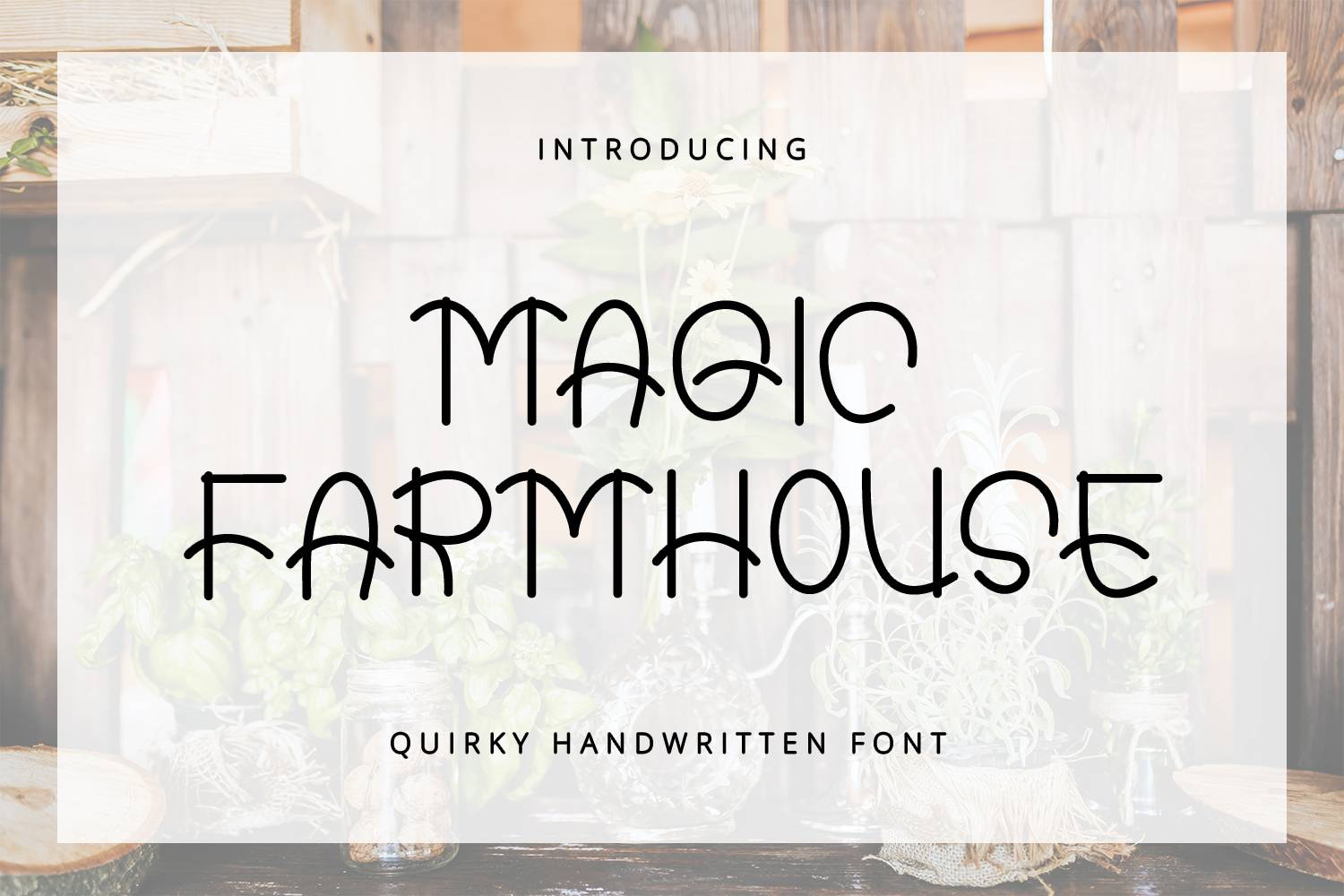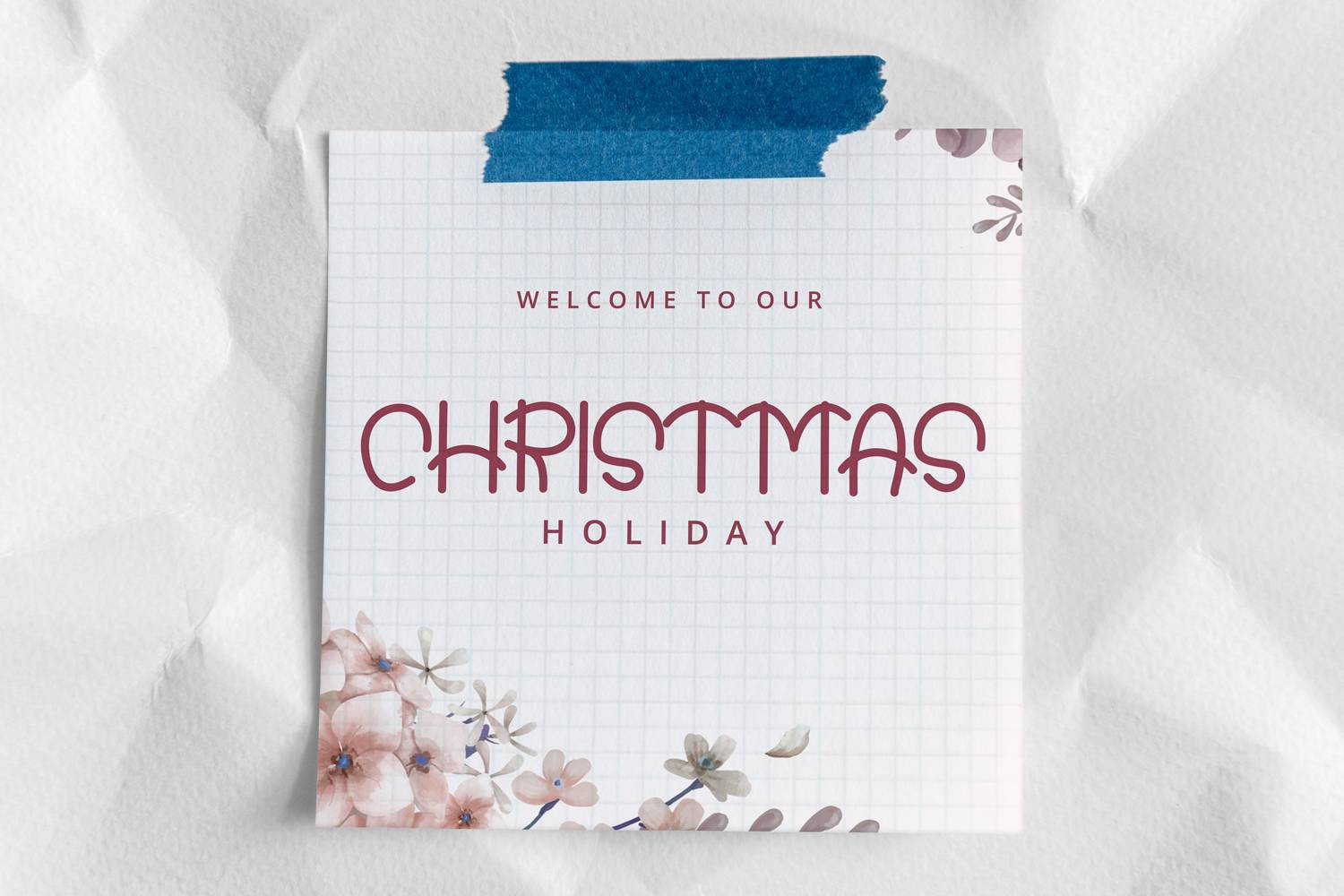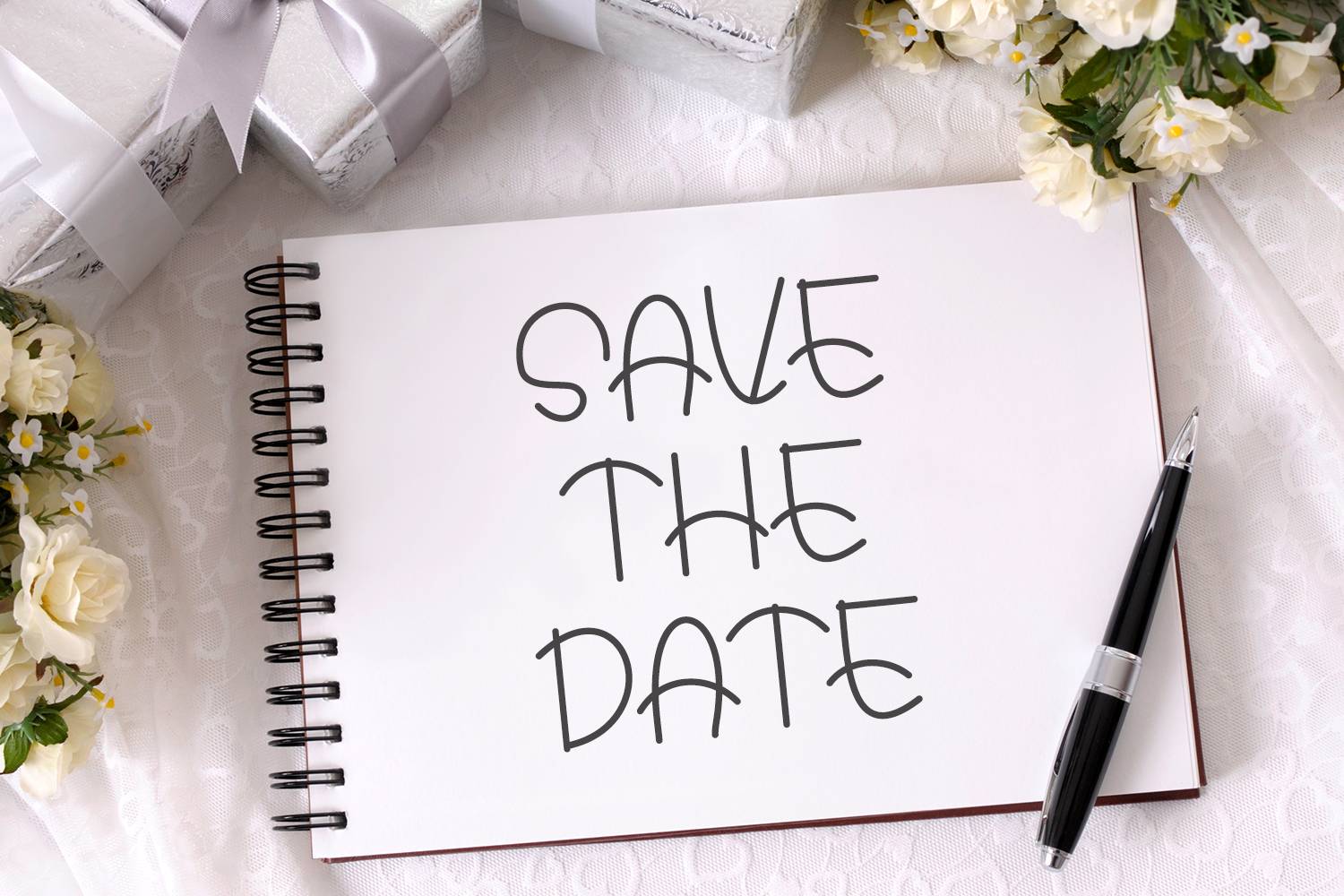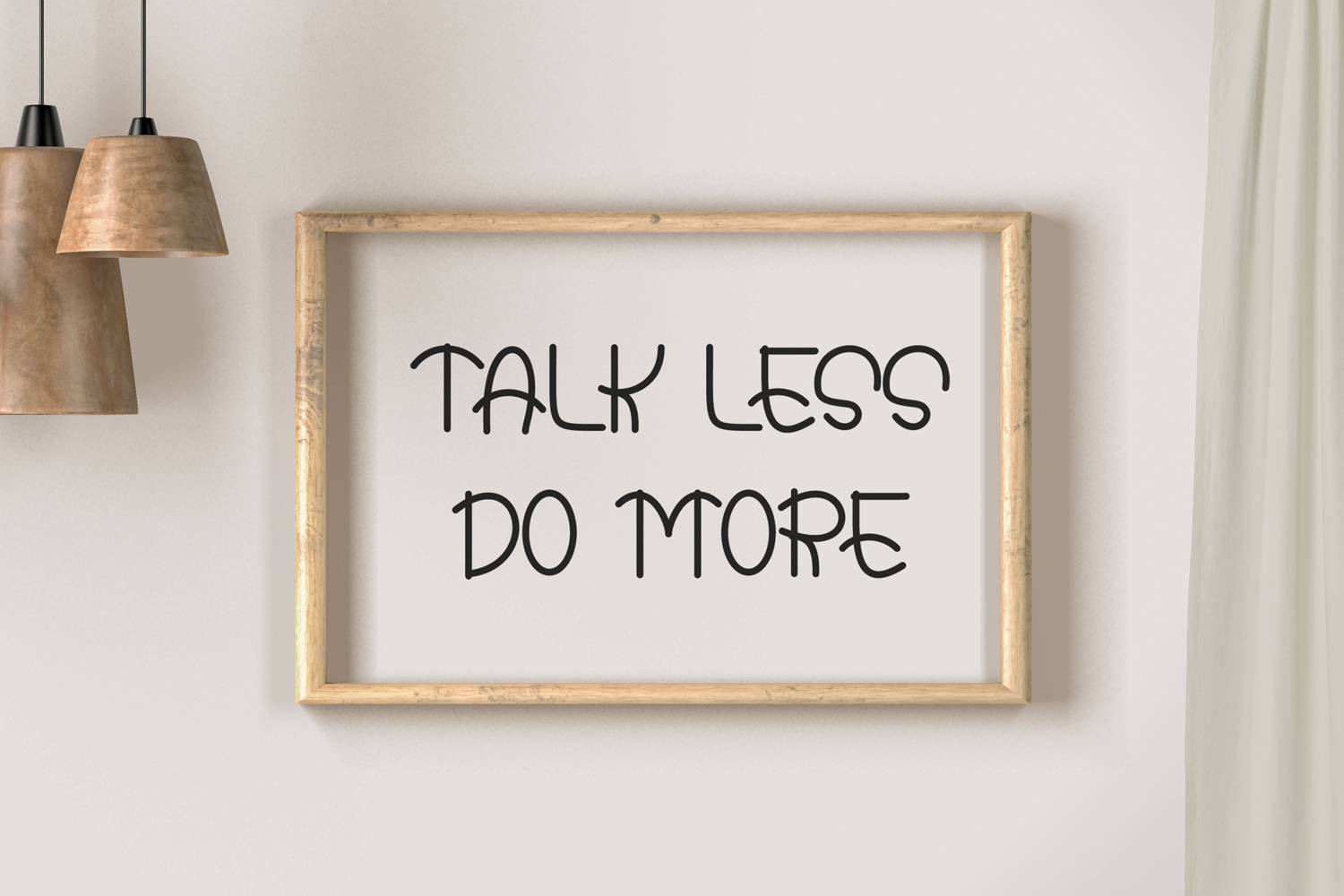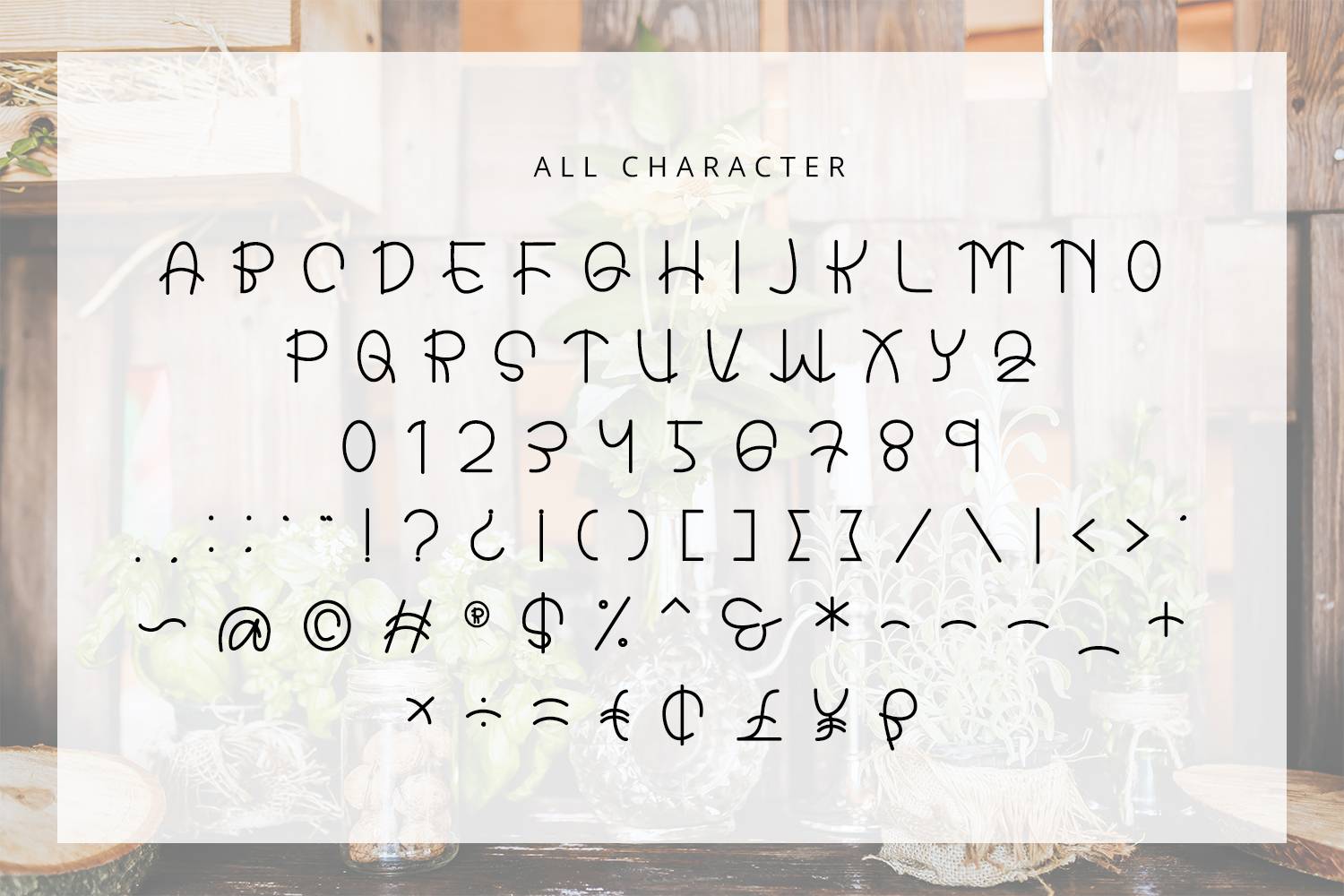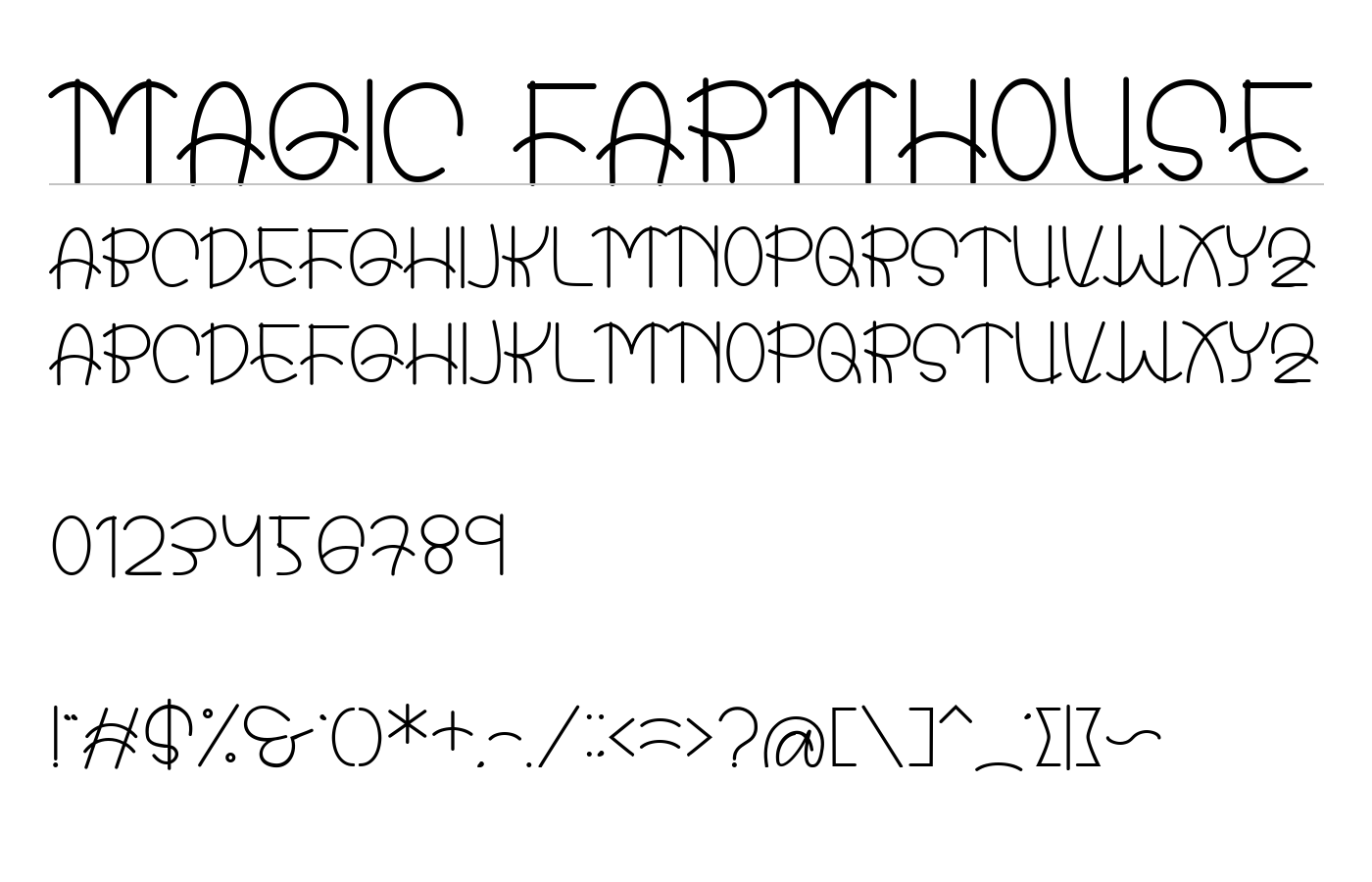
Magic Farmhouse is a whimsical, thin-lined sans serif font characterized by its playful, hand-drawn look and unique letterforms that combine straight lines with delicate curves and loops. Its light weight and open spacing give it an airy, friendly feel, making it perfect for creative projects like children’s books, casual branding, or invitations where a charming, informal touch is desired. This font works best in headlines or decorative text where its quirky personality can shine without compromising readability.
Magic Farmhouse Font
About Magic Farmhouse Font
| Font family | Magic Farmhouse Font |